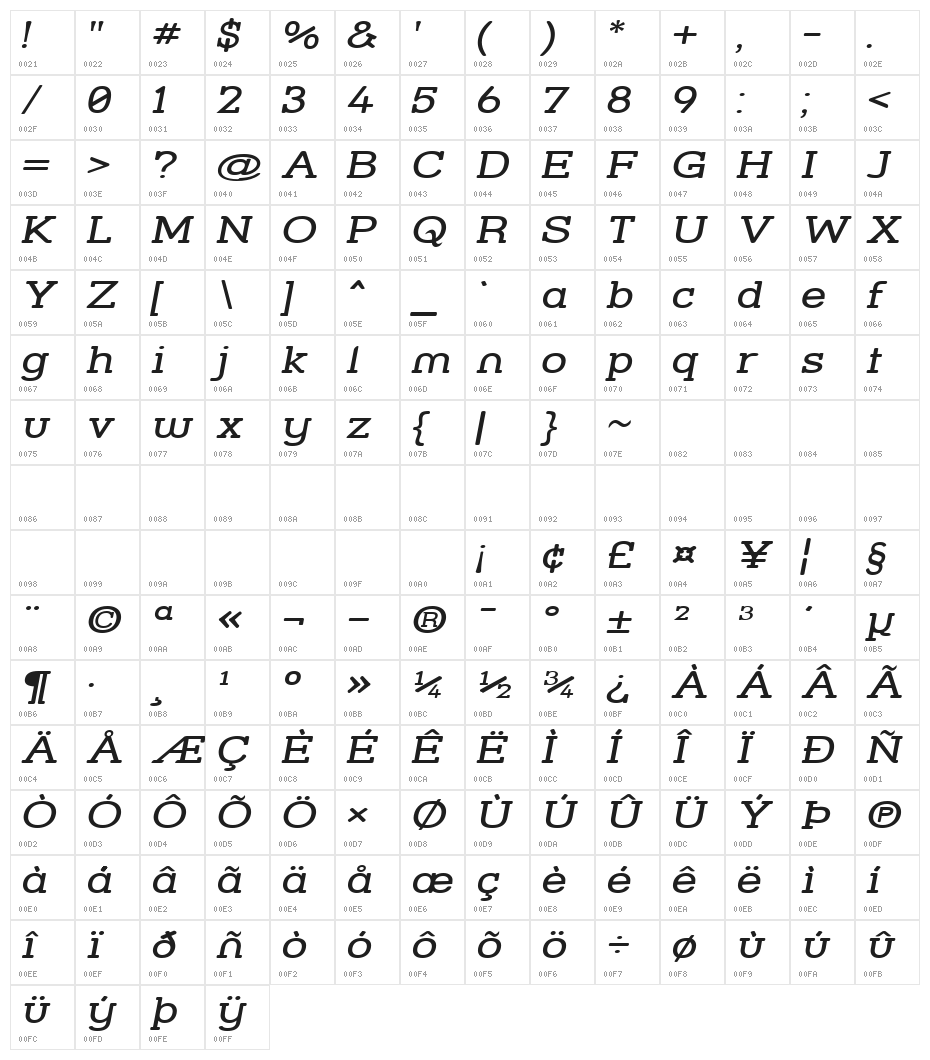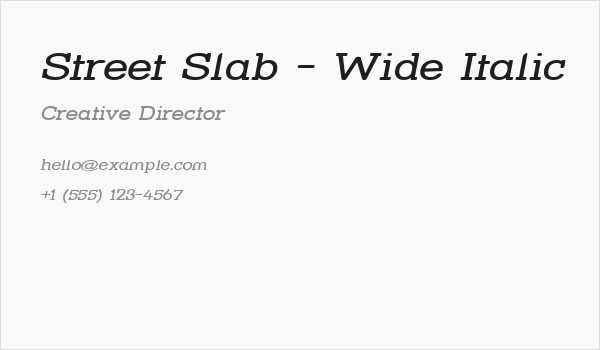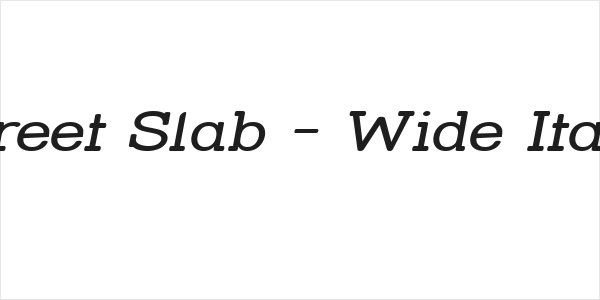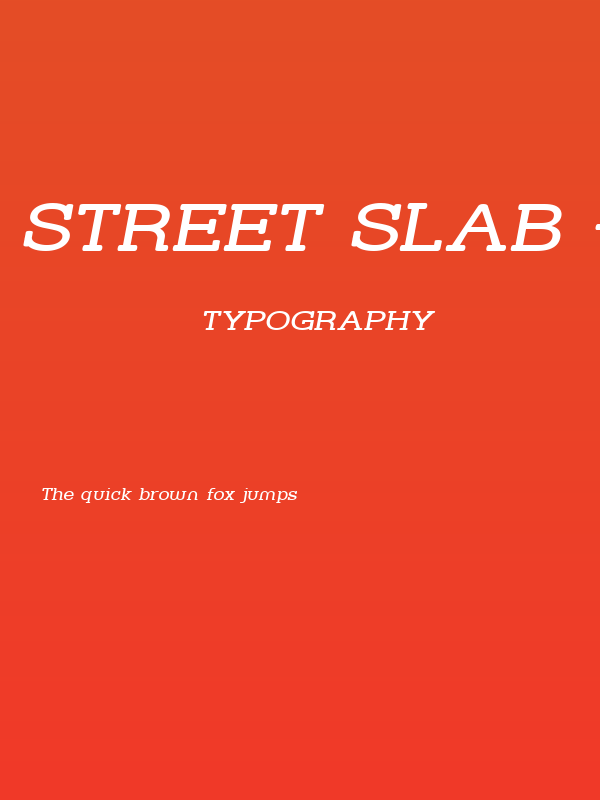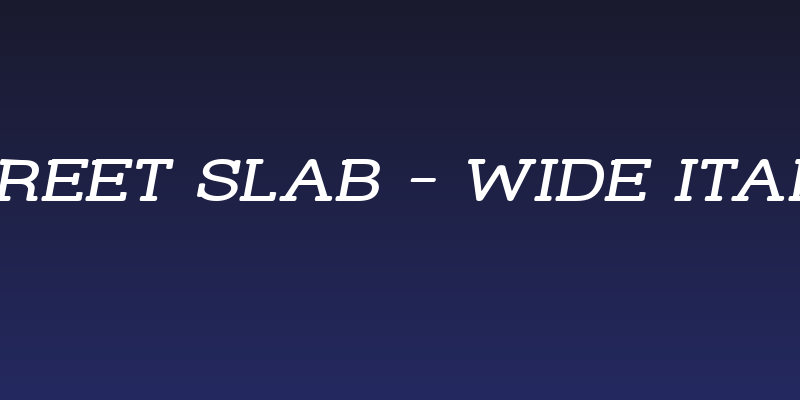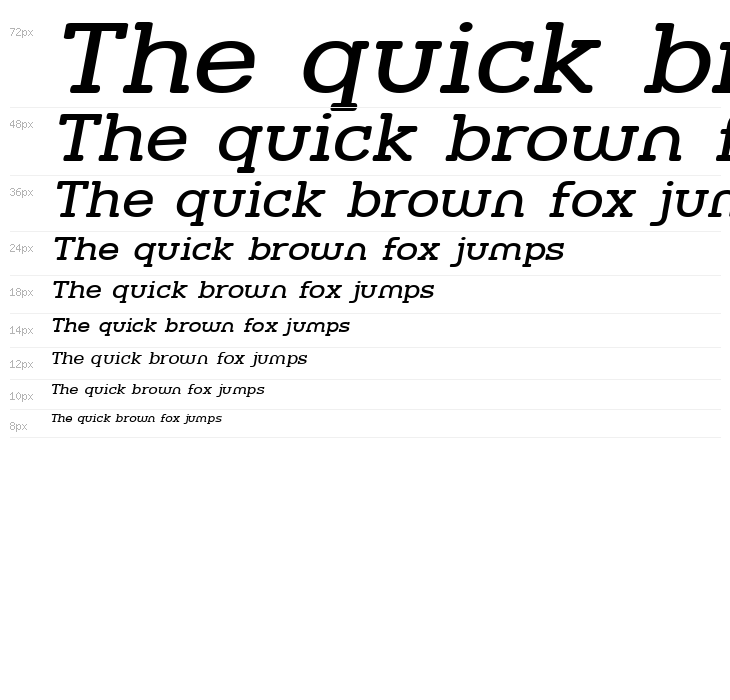
Street Slab - Wide Italic Font
Street Slab - Wide Italic Description
This typeface features a robust slab serif design with a distinctive italic slant, giving it a dynamic and modern appearance. The characters are wide, providing a sense of stability and strength. The uppercase letters are bold and commanding, while the lowercase letters maintain a consistent flow with rounded edges. Numerals are clear and legible, making them suitable for various applications. The special characters are well-integrated, ensuring versatility in design projects. The overall style is both contemporary and functional, ideal for making a strong visual impact.